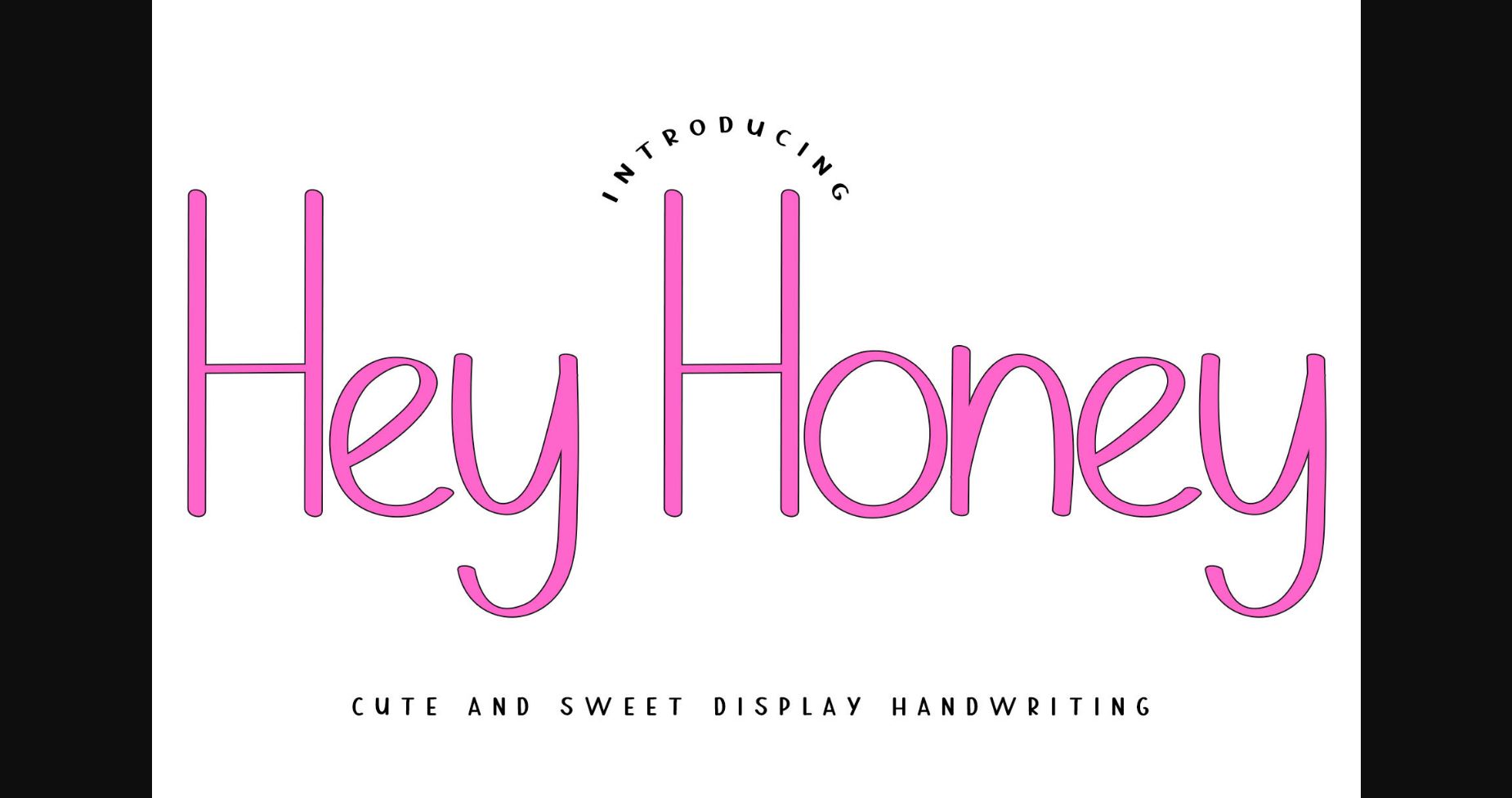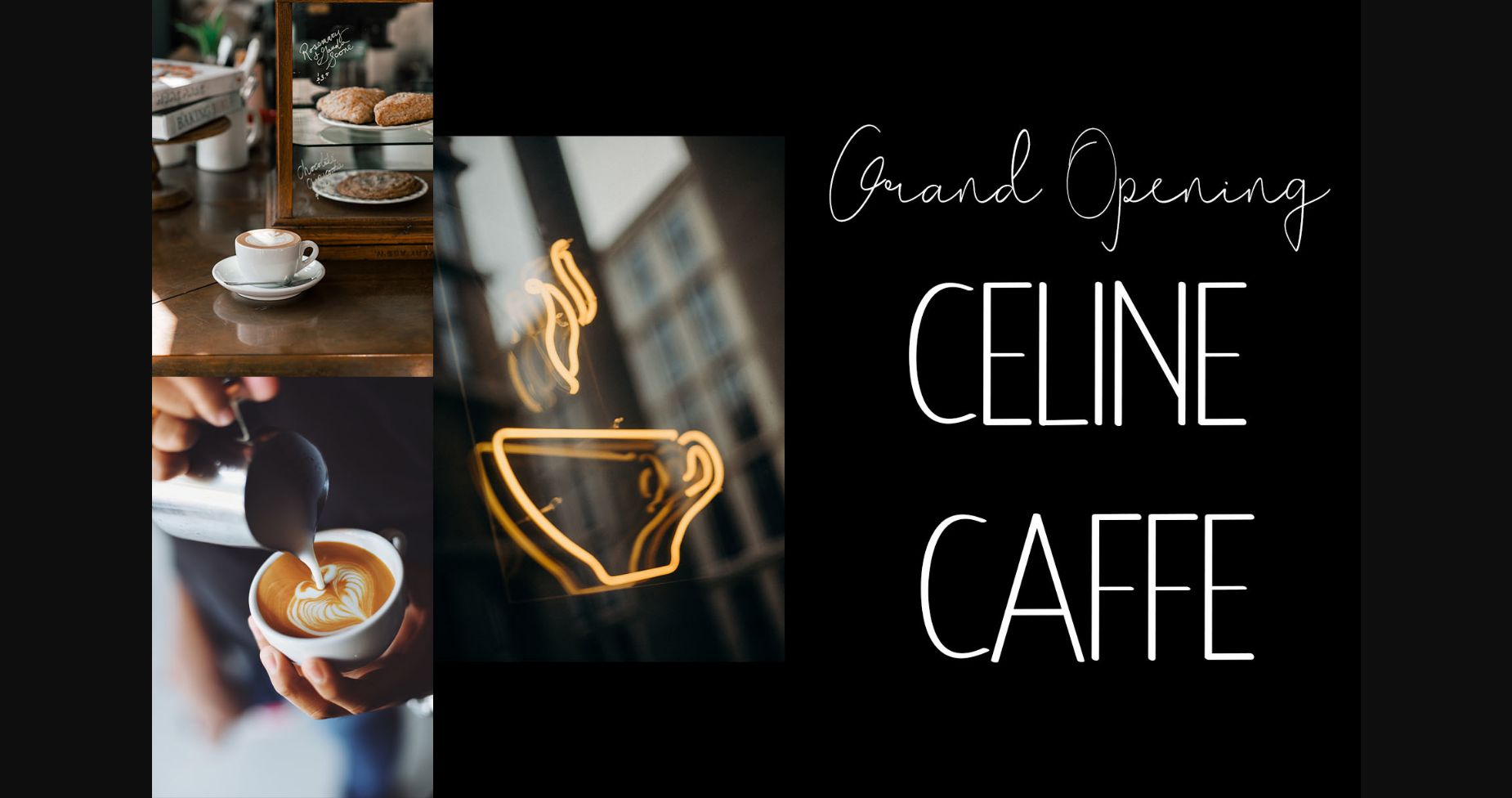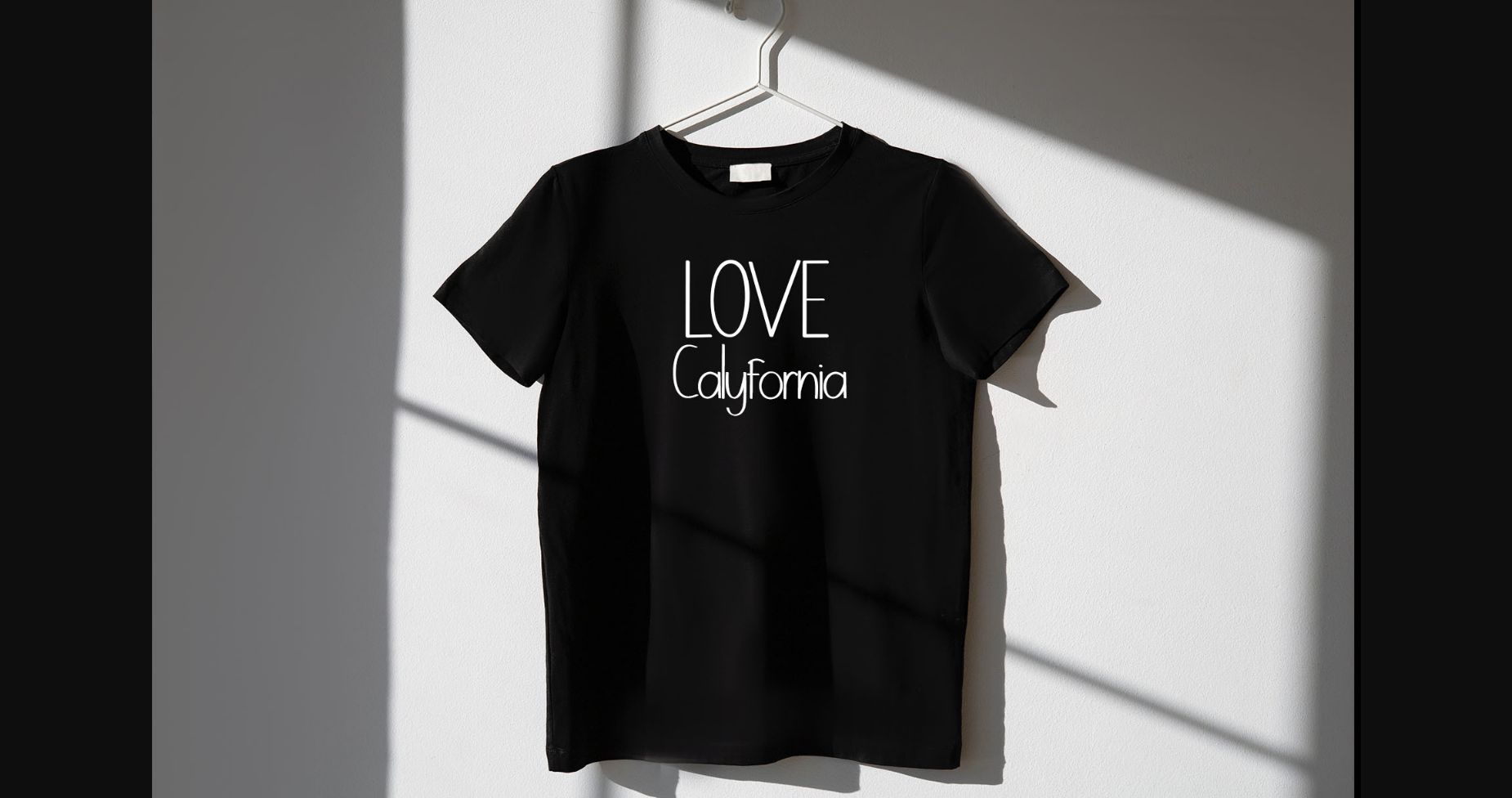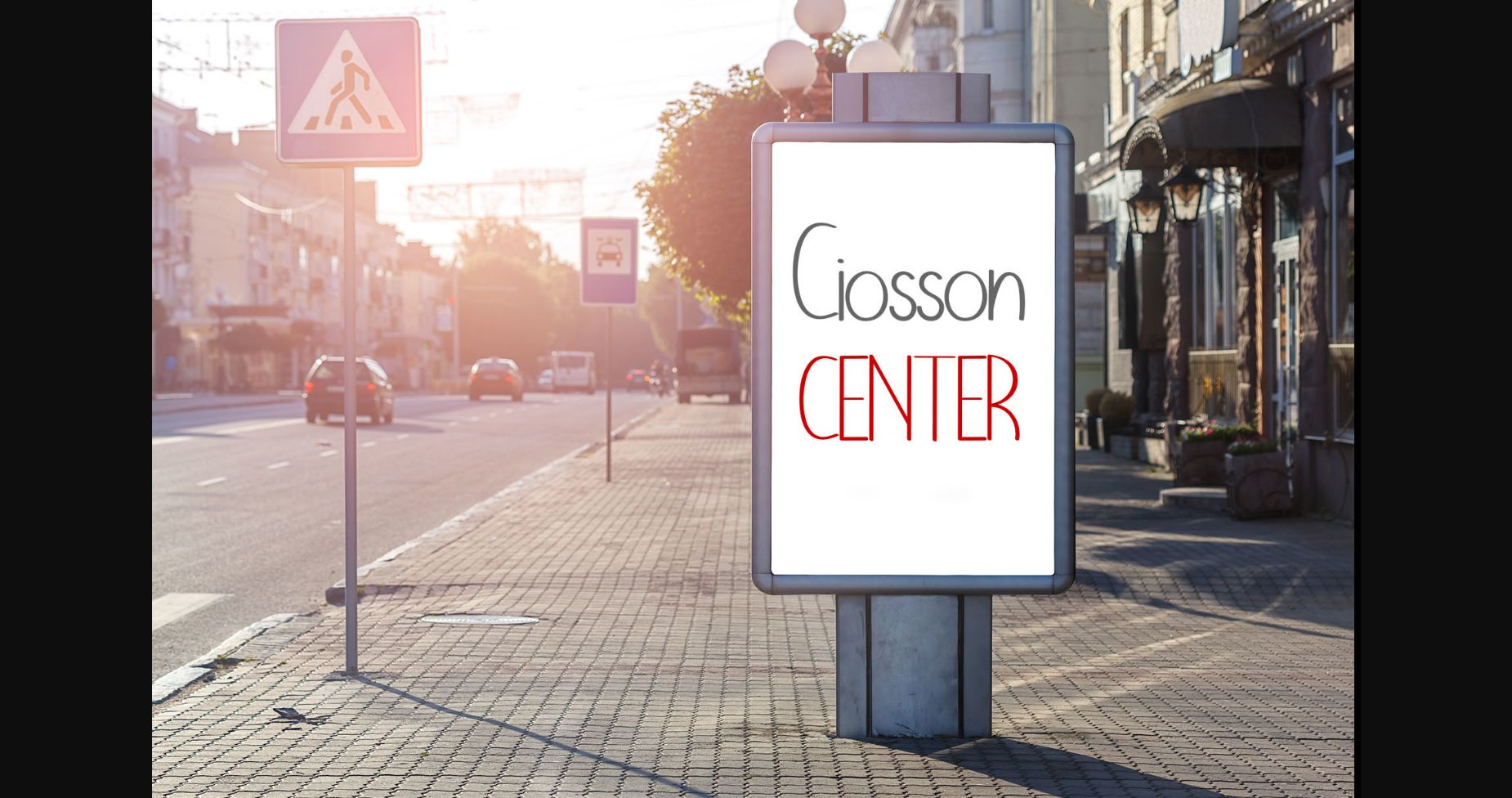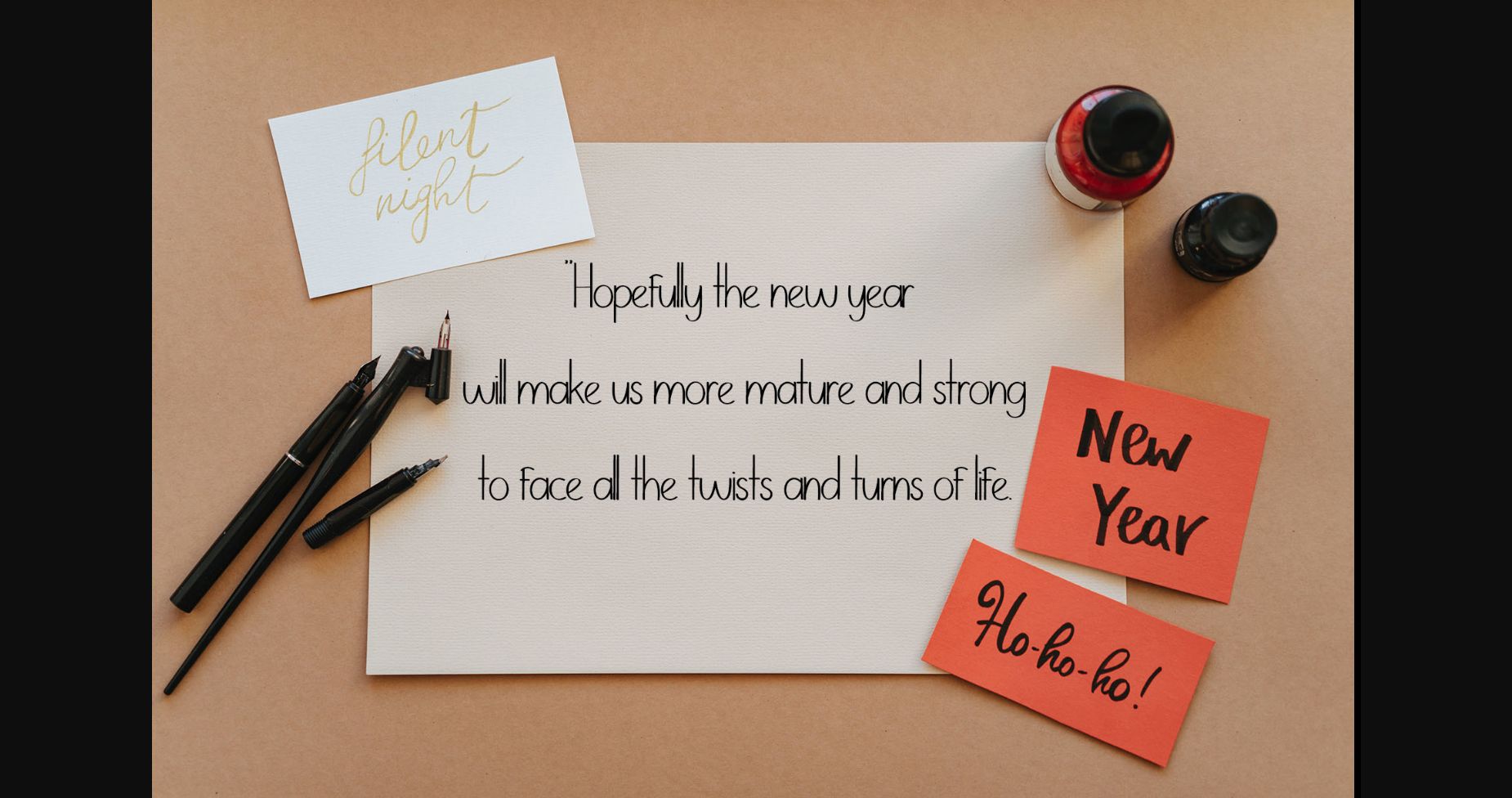
HomeSans Serif FontsHey Honey Font Sans Serif Fonts Hey Honey Font FacebookXPinterestWhatsApp 1 of 7 ... Hey Honey Font Poster 2... Hey Honey Font Poster 3... Hey Honey Font Poster 4... Hey Honey Font Poster 5... Hey Honey Font Poster 6... Hey Honey Font Poster 7... About Hey Honey Font Hey Honey is the perfect font for your daily life. This minimal sans serif font will make sure that your ideas will look impeccable and perfect. DOWNLOAD NOW People also explored Edgytic Font Ringbolts Font Handwritting Font Newark JNL Font Hafetareha Font Heart Deco Monogram Font Dulcian Bloom Monday Font Flowerina Font 271 0 TagsHey Honey Font Previous articleDebella FontNext articleAnthony Font LEAVE A REPLY Cancel reply Comment: Please enter your comment! Name:* Please enter your name here Email:* You have entered an incorrect email address! Please enter your email address here Website: Save my name, email, and website in this browser for the next time I comment. Personal Use Free Rasiday Personal Use Free Read more about this font Twisty Girlz Personal Use Free Read more about this font Hair Thinned Personal Use Free Read more about this font Anjhay Personal Use Free Read more about this font BLOG Best Fonts for YouTube Videos: Make Your Thumbnails Stand Out Best Fonts for YouTube Videos: Make Your Thumbnails Stand Out Choosing the right font can make a massive difference in how your YouTube videos perform.... Where to Buy American Fonts Online in 2024 Fonts That Capture the Spirit of New York City 5 Fonts That Will Dominate Design Trends in 2026